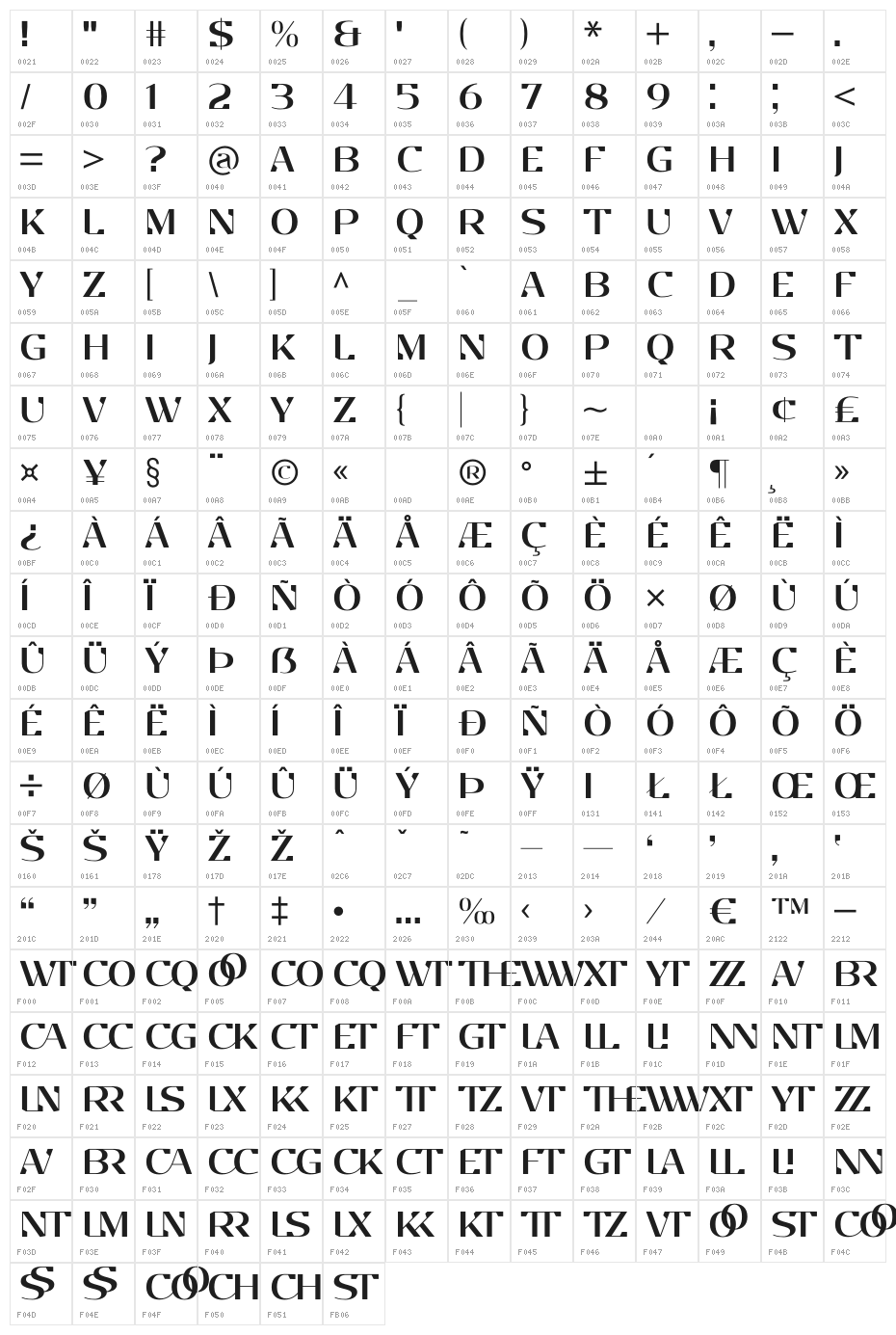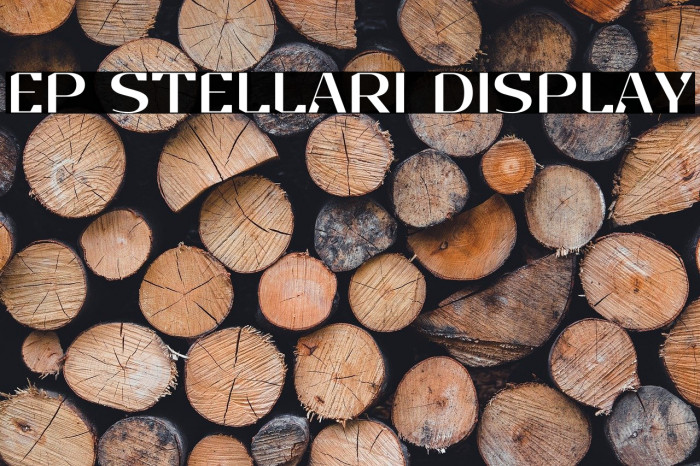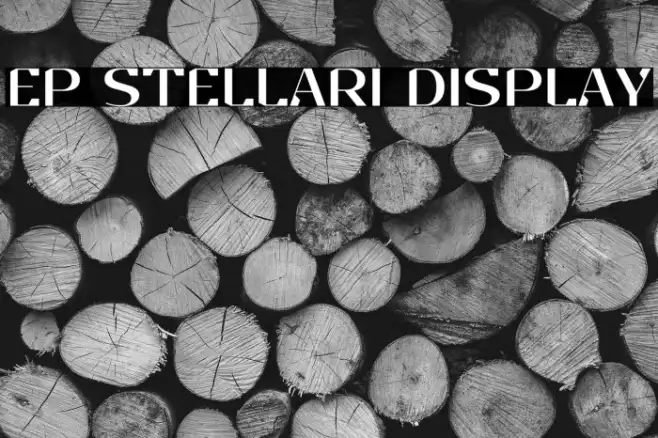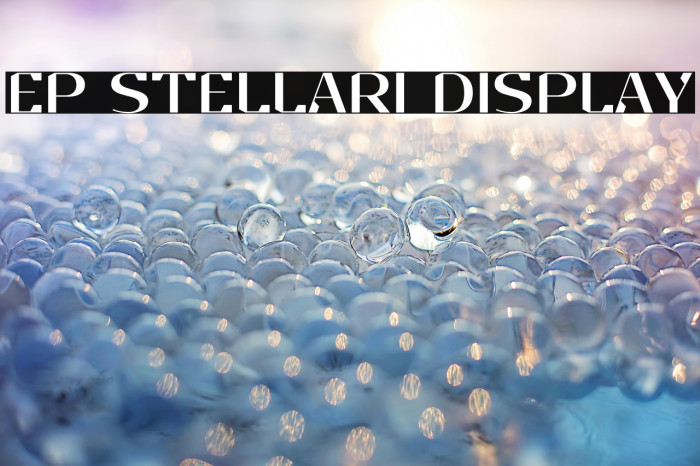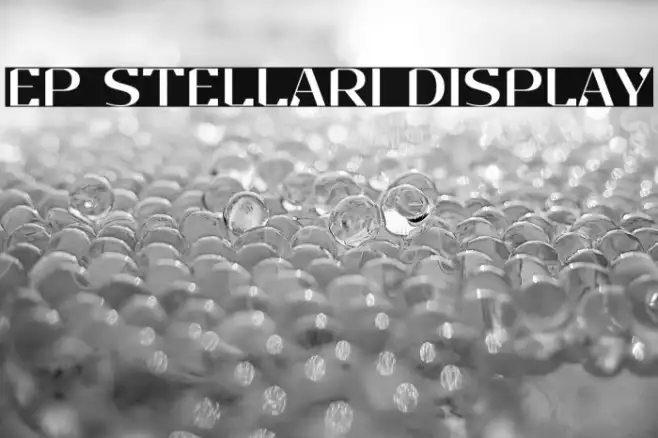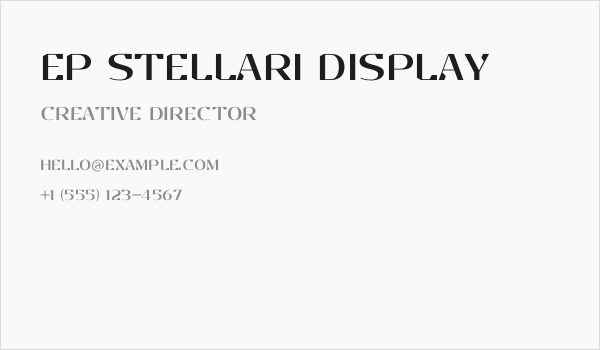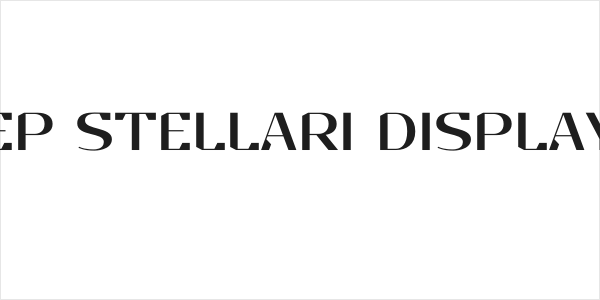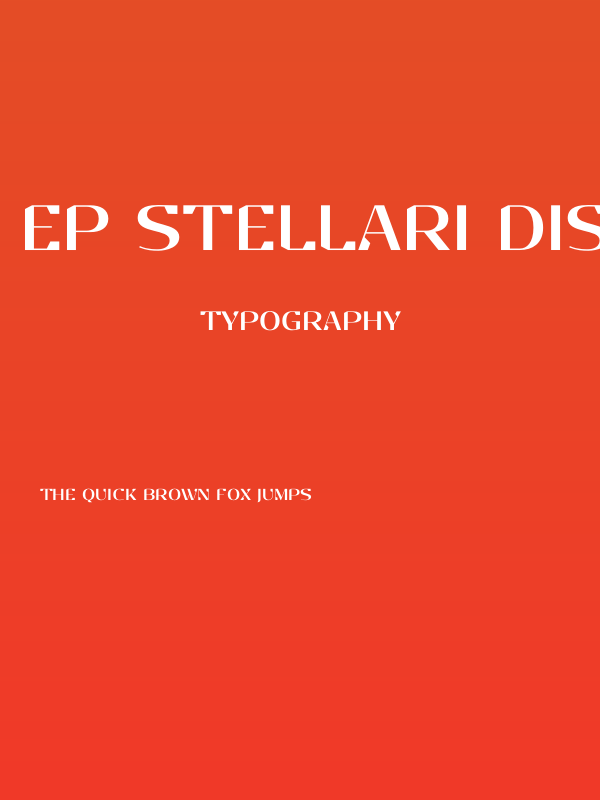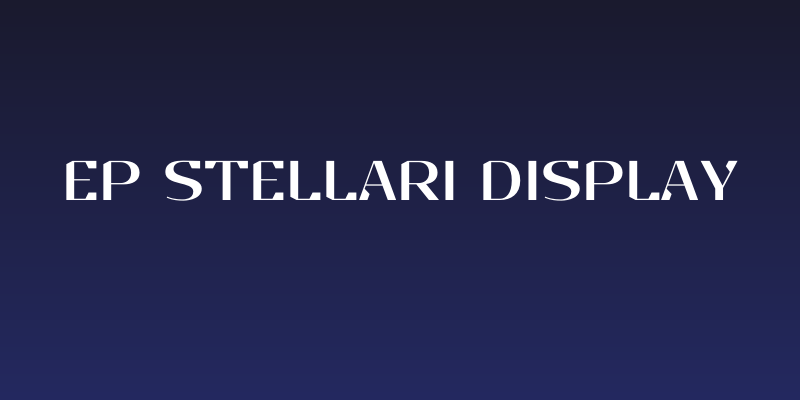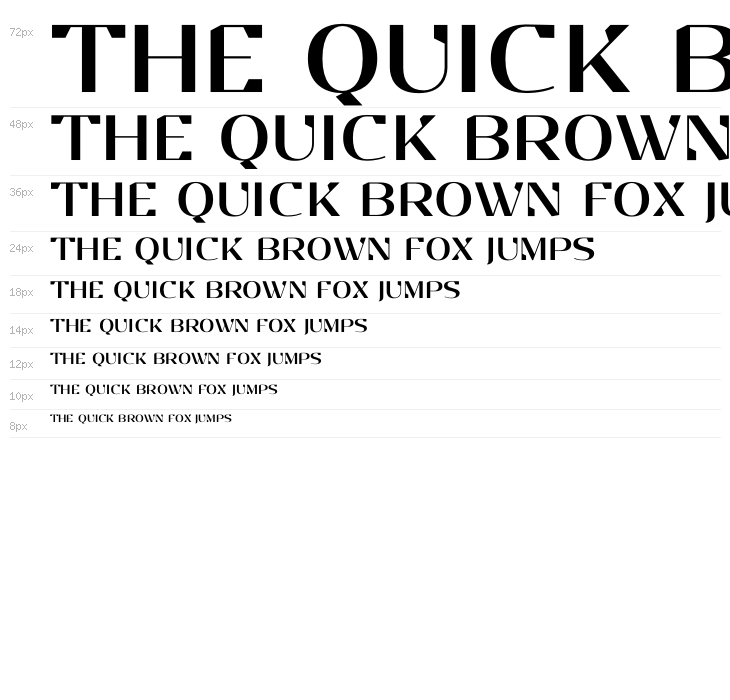
EP Stellari Display Font
EP Stellari Display Description
This font features a bold and striking design with a modern flair. The characters are crafted with a unique blend of sharp angles and smooth curves, creating a dynamic and eye-catching appearance. The uppercase letters exhibit a strong presence, while the lowercase letters maintain a consistent style, ensuring readability. The numerals are distinct and well-proportioned, complementing the overall aesthetic. Special characters are designed with the same attention to detail, making this font versatile for various applications. Its bold weight and high contrast in stroke thickness enhance its visual impact, making it suitable for display purposes.